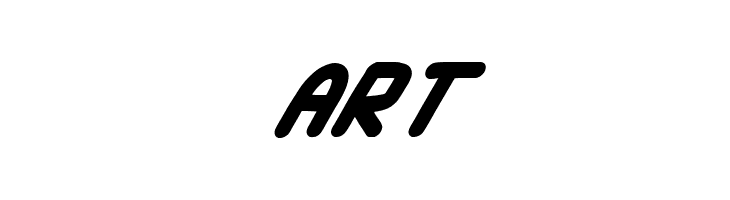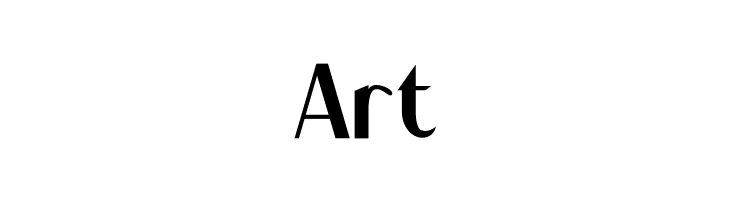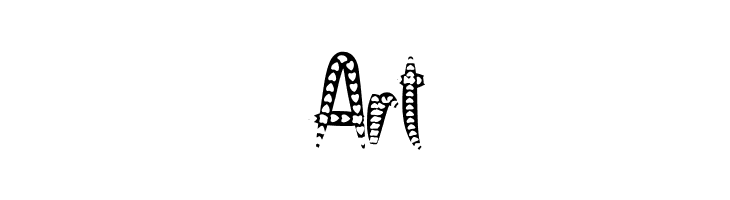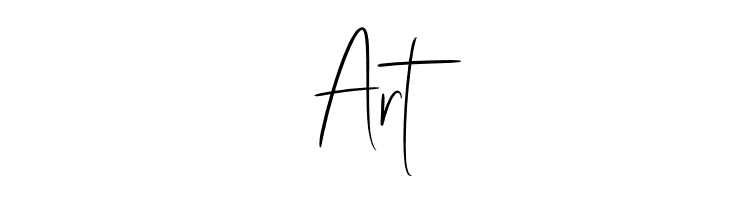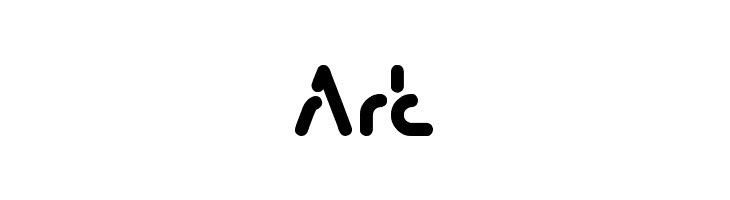
A playful, handwritten font with smooth, rounded strokes and a casual, energetic style.
A bold, rounded, and slightly slanted font with a modern, sporty aesthetic.
A bold, playful font with rounded edges and a slightly oblique style.
A bold, italicized font with a dynamic and energetic style.
A bold, modern font with a dynamic and elegant style.
An elegant script font with flowing, decorative strokes.
A dynamic and elegant script font with flowing, cursive letterforms.
A playful, heart-patterned decorative font with a hand-drawn style.
A stylish, handwritten font with elongated, flowing lines and a sophisticated appearance.
A bold, futuristic font with rounded edges and geometric structure.